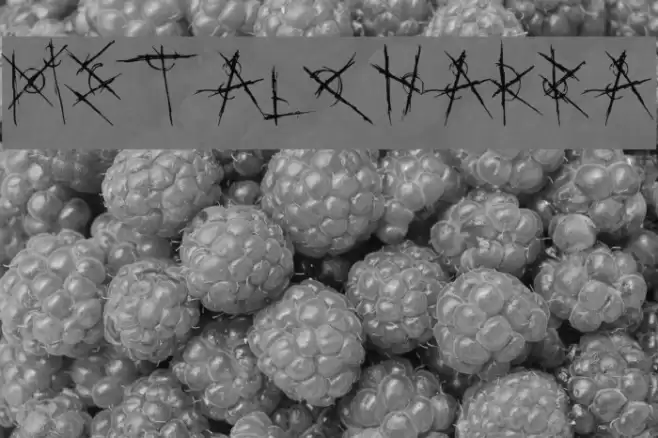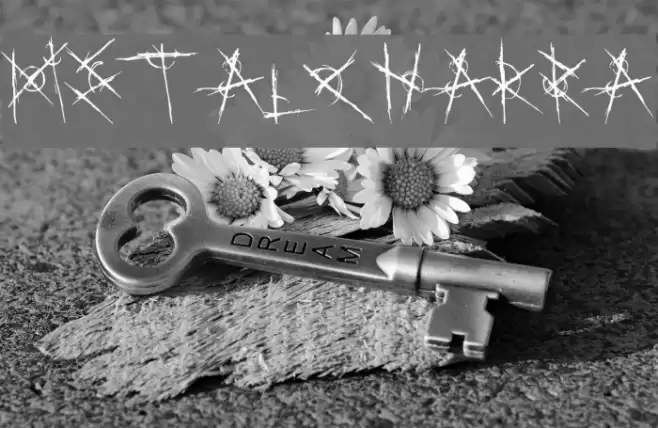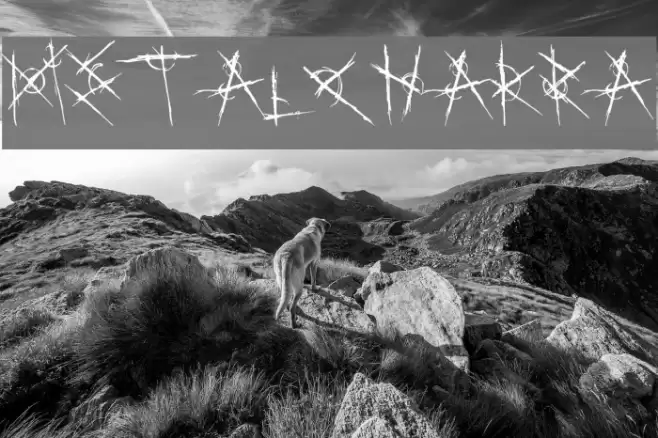
MetalChakra Font
MetalChakra Description
This font features an aggressive and chaotic design, characterized by sharp, jagged lines and an overall distressed appearance. Each character is uniquely crafted with intersecting strokes that create a sense of movement and intensity. The uppercase and lowercase letters maintain a consistent style, with a raw and edgy aesthetic that resembles barbed wire or scratched surfaces. The numerals and special characters follow the same design principles, adding to the font's cohesive look. This font is highly decorative and not intended for readability in long texts, but rather for impactful visual statements.
A chaotic, jagged font with a distressed, aggressive style from Uncategorized fonts.
- Proposed Projects: Ideal for album covers, posters, or branding for edgy, alternative, or metal-themed projects.
- Character Spacing: Tight
- Use Case: Logos, Headlines